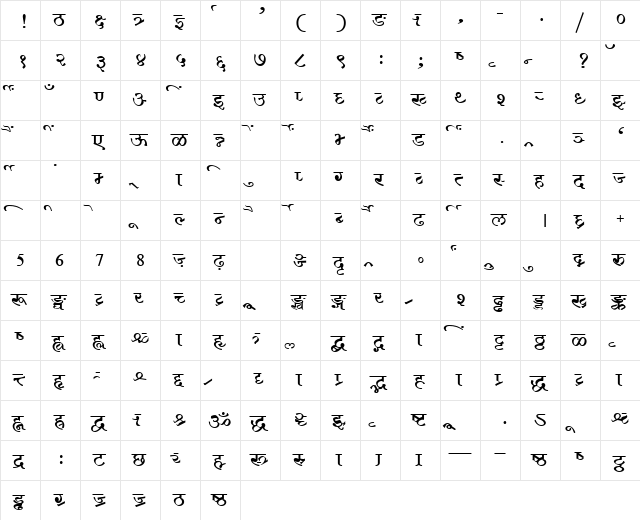
AkrutiDevAkankshaMedium Normal
Design Context for AkrutiDevAkankshaMedium Typeface
AkrutiDevAkankshaMedium offers clean, dependable letterforms without strong stylistic allegiance, making it a practical choice for designers who need flexibility.